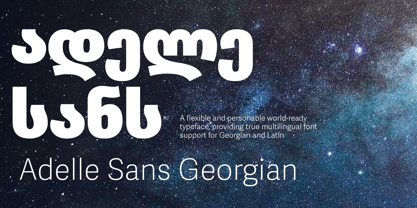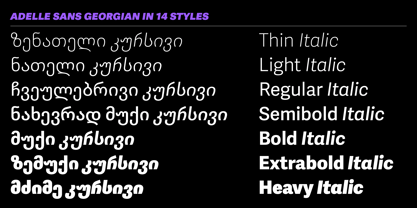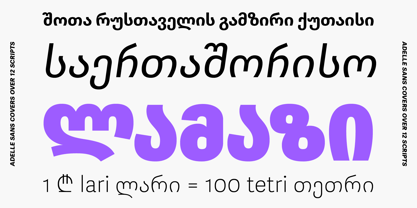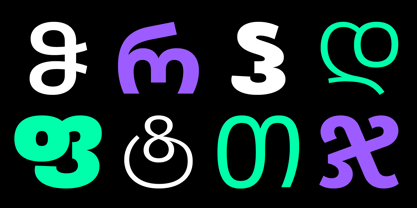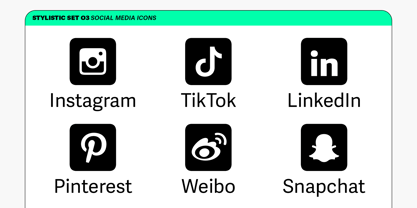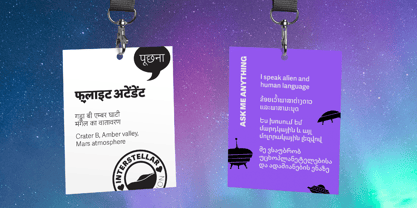
Adelle Sans Georgian
by TypeTogether
The Adelle Sans Georgian Font Family was designed by Veronika Burian, José Scaglione, Jan Charvát, Akaki Razmadze and published by TypeTogether. Adelle Sans Georgian contains 14 styles and family package options. More about this family
The original Adelle Sans, Jose Scaglione and Veronika Burian’s award-winning sans serif, provides a clean and spirited take on the traditional grotesque sans. The Georgian design was created by Jan Charvat and Akaki Radmadze in the same spirit of the full Adelle Sans family.
As is typical with TypeTogether typefaces, the most demanding editorial design problems were taken into consideration when creating Adelle Sans Georgian. The combination of lively character and unobtrusive appearance inherent to grotesque sans serifs make it an utterly versatile tool for every imaginable situation. Whether for branding, signage, editorial, or advertising, the keyword behind Adelle Sans Georgian’s use is flexibility.
Adelle Sans Georgian is available in 14 styles that capitalise on legibility and provide the designer a wide range of text emphasis within their layout. By creating weights from Thin to Heavy, the Georgian is a perfect counterpart to the Latin in tone, vertical proportions, and functionality. This ensures an harmonious fit between both type families in the same block of text and a pleasing change of texture when used at similar point sizes.
Rooted in the belief that broad language support is crucial to modern type design, Adelle Sans Georgian is yet another push in TypeTogether’s ongoing multilingual efforts. Adding language support is not a simple act of matching geometry stroke for stroke; each script must harmonise with the others while still maintaining its own identity. Georgian script is inherently more organic than Latin, with individual letters that emphasise curves and flowing strokes. Adelle Sans Georgian is therefore softer than its Latin counterpart. The Adelle family’s naturally clean and spirited shapes lend themselves to an agile Georgian translation of the colour and feel of the Latin, matching the overall functionality, purpose, and cultural awareness.
Across the entire multilingual family — Arabic, Armenian, Chinese, Cyrillic, Devanagari, Greek, Hebrew, Lao, Latin, Latin Extended, Thai, and now Georgian, with more on the way — each has been engineered to optically match the proportions of its counterparts. Adelle Sans Georgian’s exhaustive character set and OpenType support delivers consistent, flexible, and personable results in digital and printed multilingual documents and multicultural branding.
Designers: Veronika Burian, José Scaglione, Jan Charvát, Akaki Razmadze
Foundry: TypeTogether